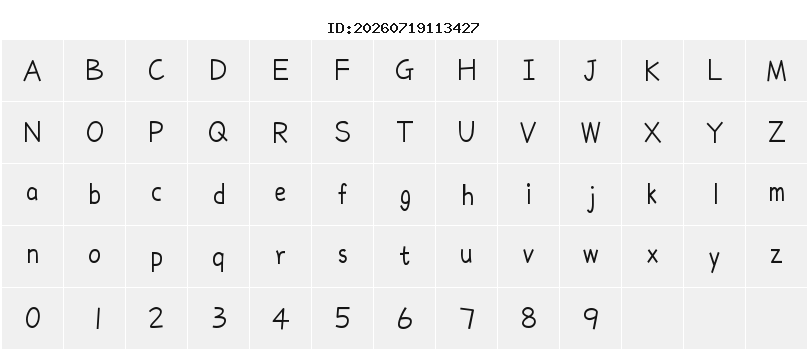
也字工厂快乐星球体 Preview
• Font Name: 也字工厂快乐星球体
• Full Font Name: 也字工厂快乐星球体
• Manufacturer: 也字工厂
About 也字工厂快乐星球体.ttf
也字工厂快乐星球体.ttf is a modern, elegant sans-serif font designed for ultimate readability and visual harmony. Perfect for branding, headlines, web design, and print materials.